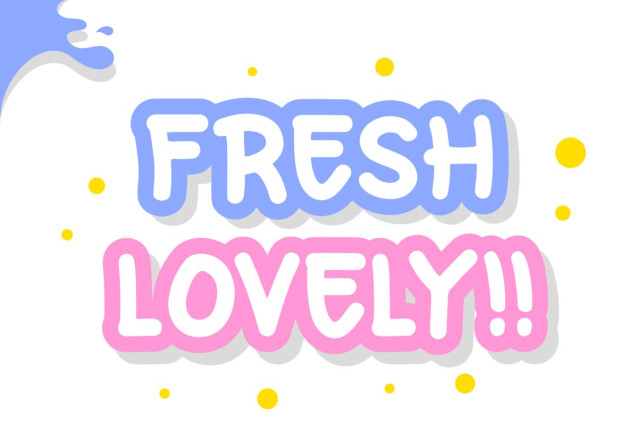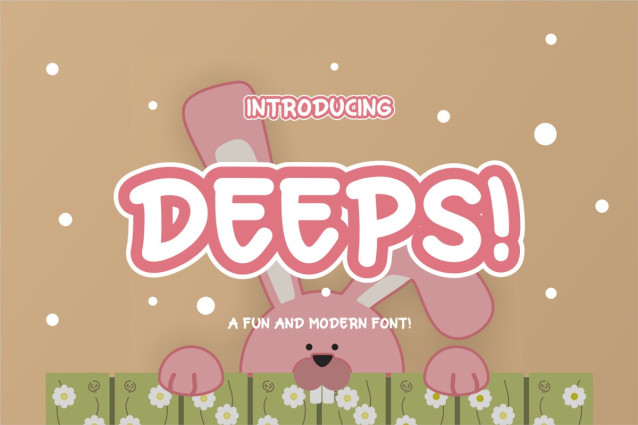
Deeps Font a Fun and Modern Font, inspired by cartoon style typography. This font is made with a high premium quality level which you can use as flyers, quotes, posters, banners, packaging, merchandise, logotypes and much more.